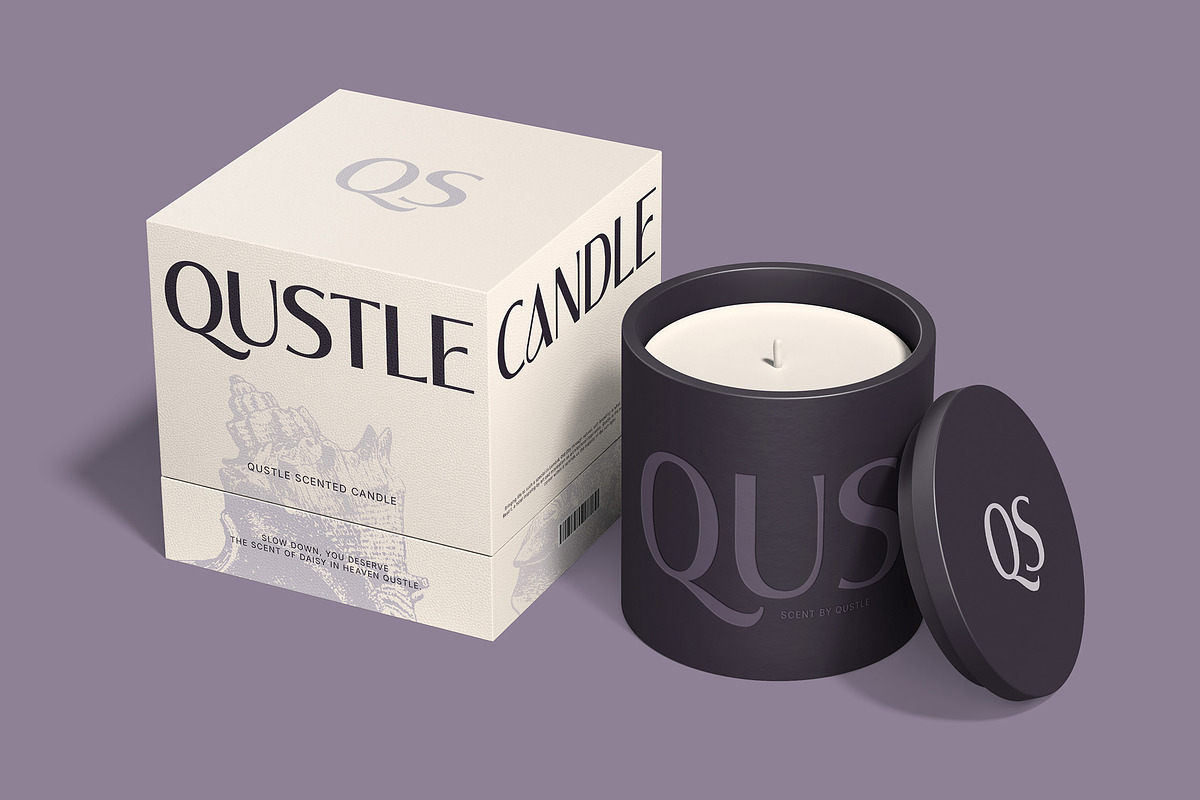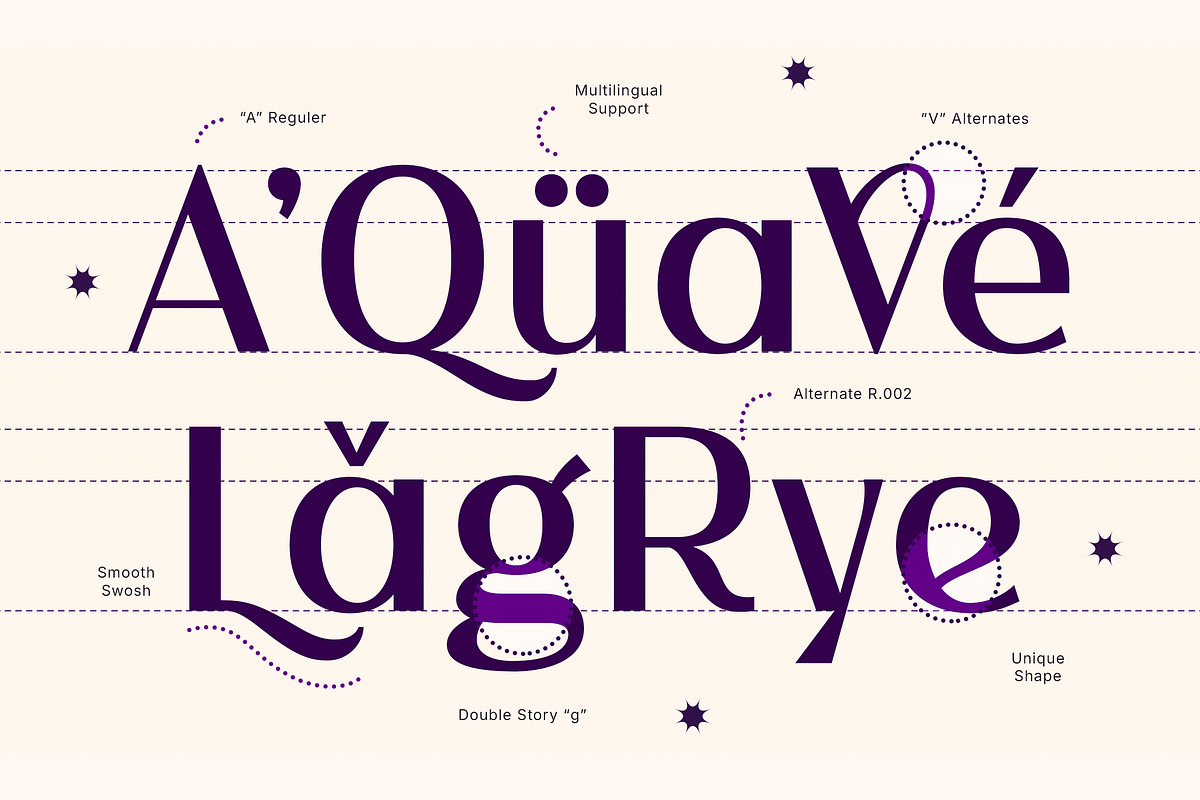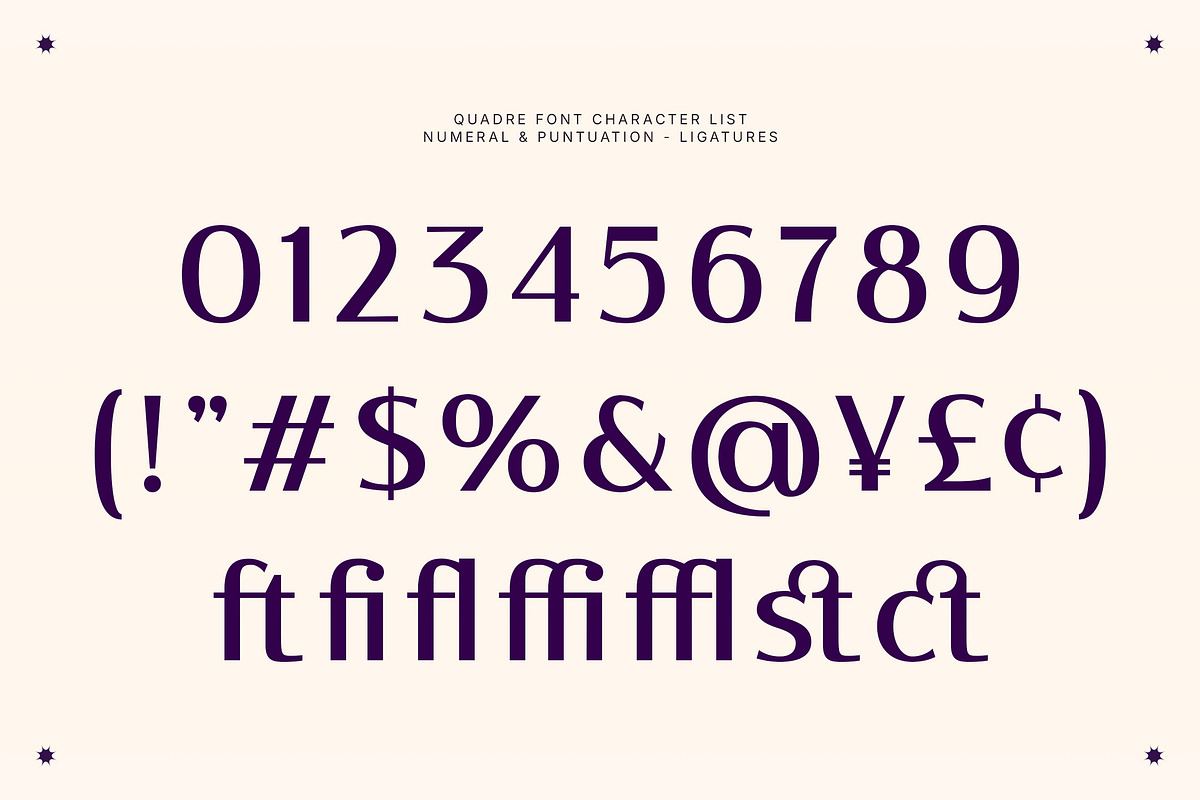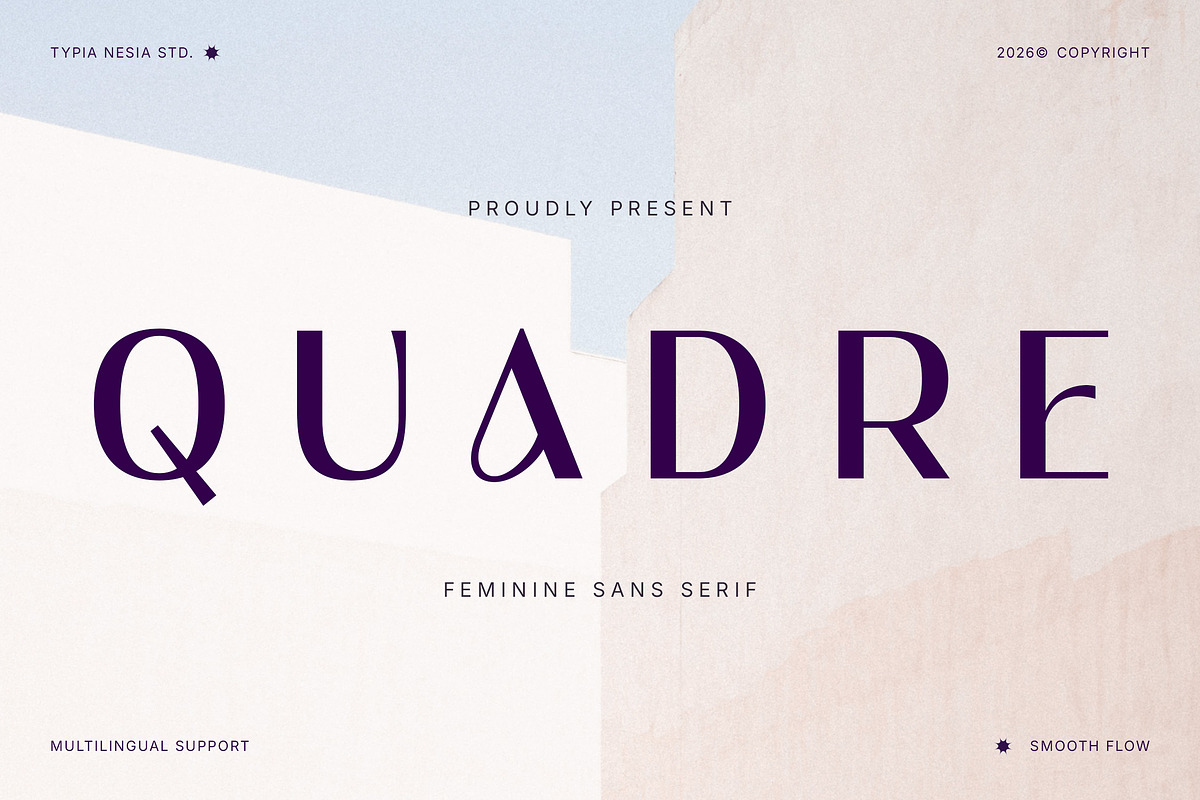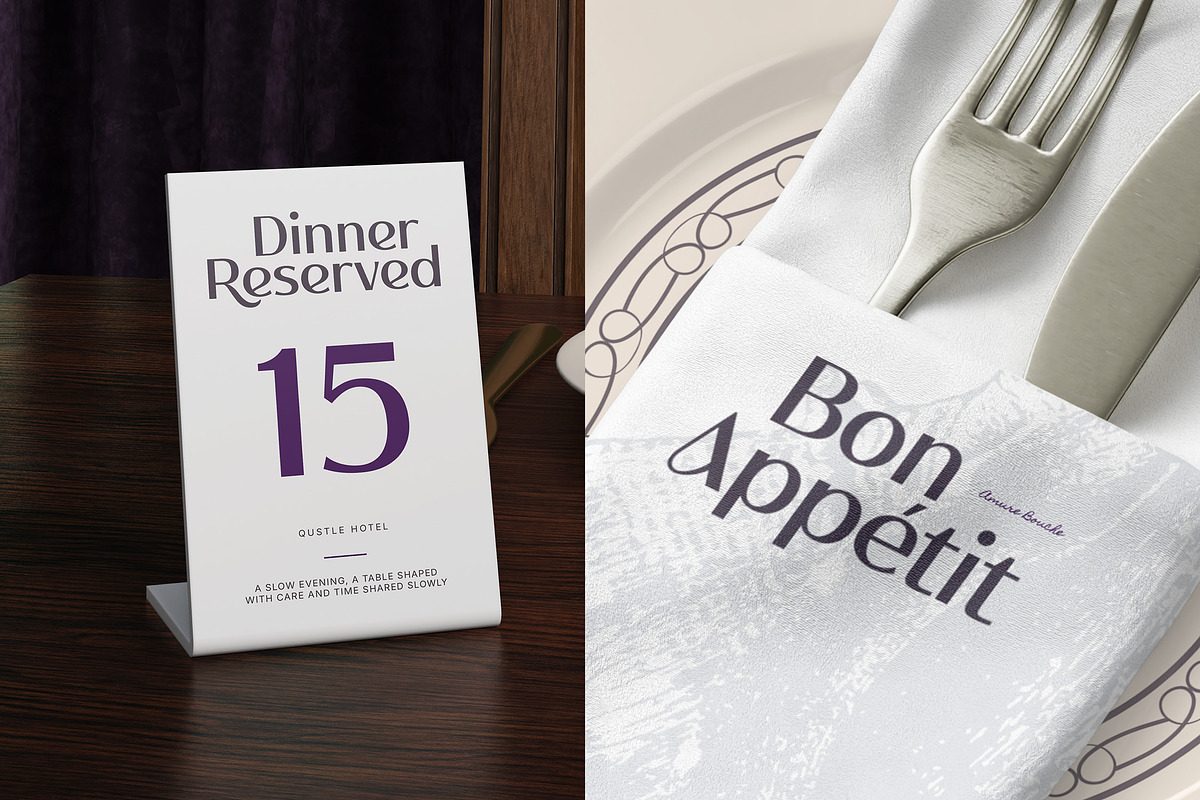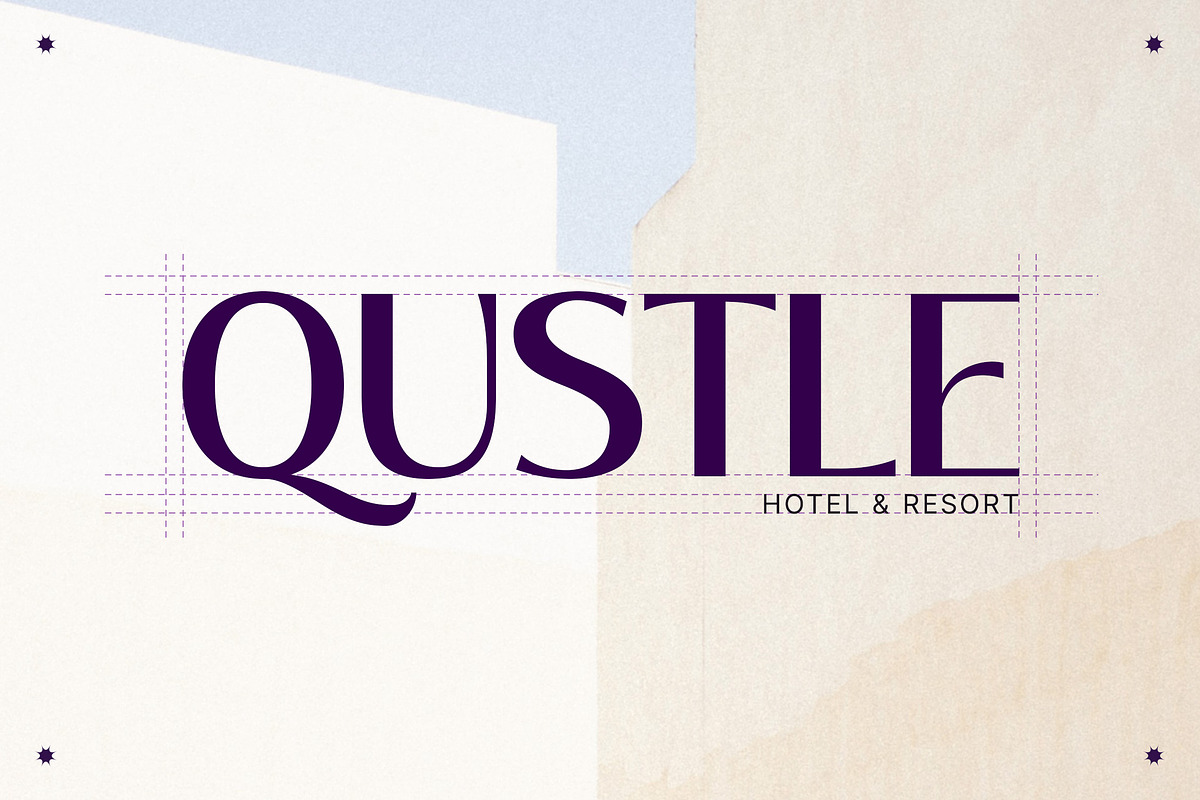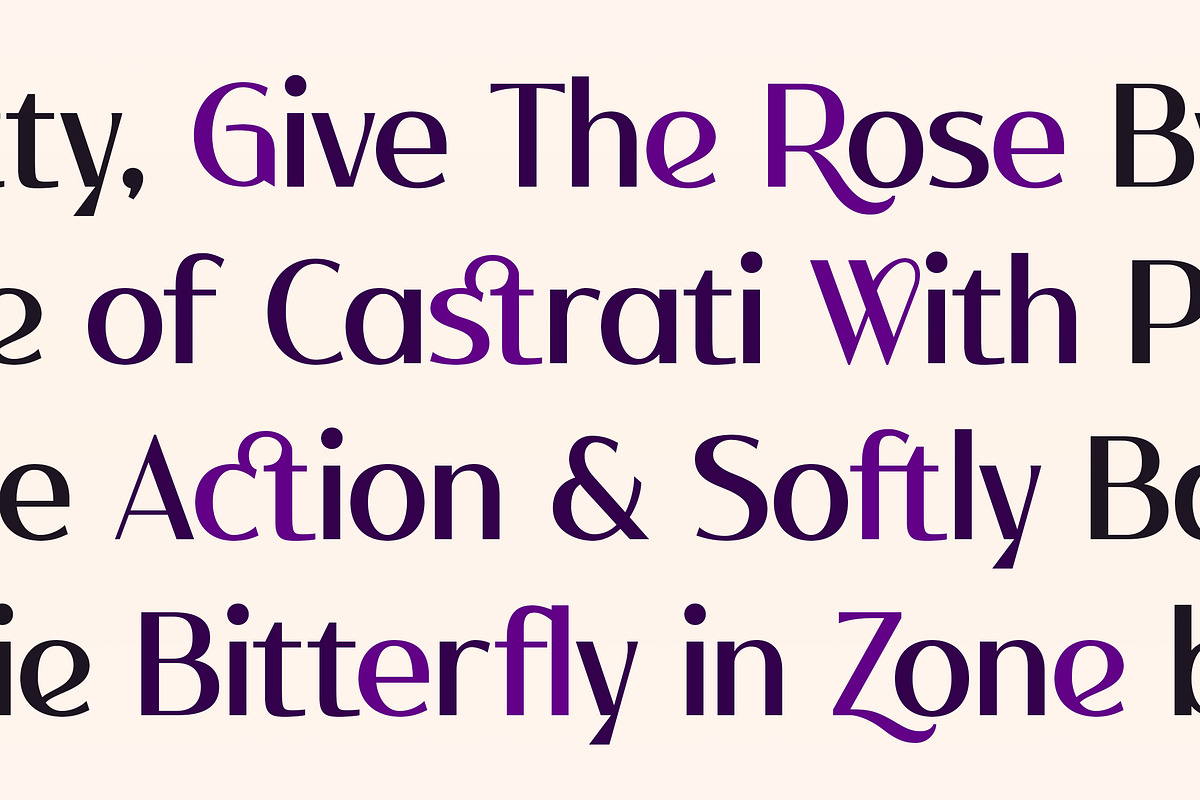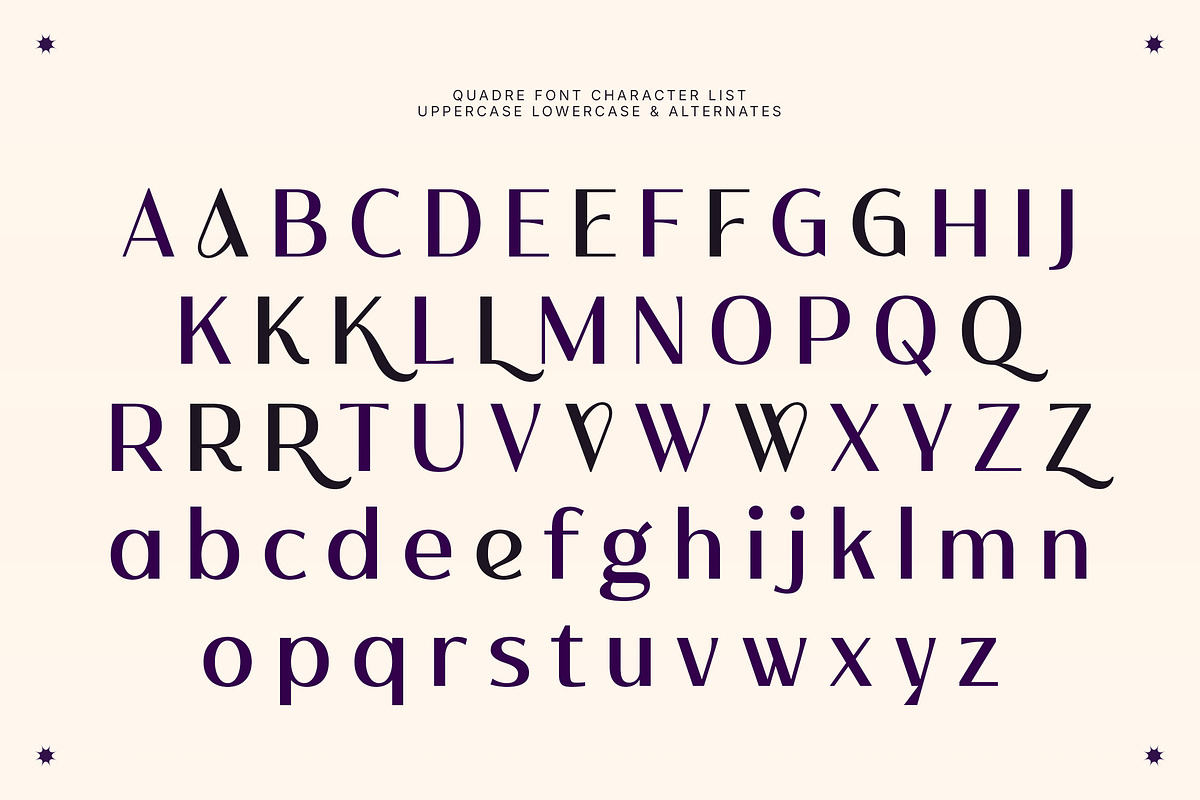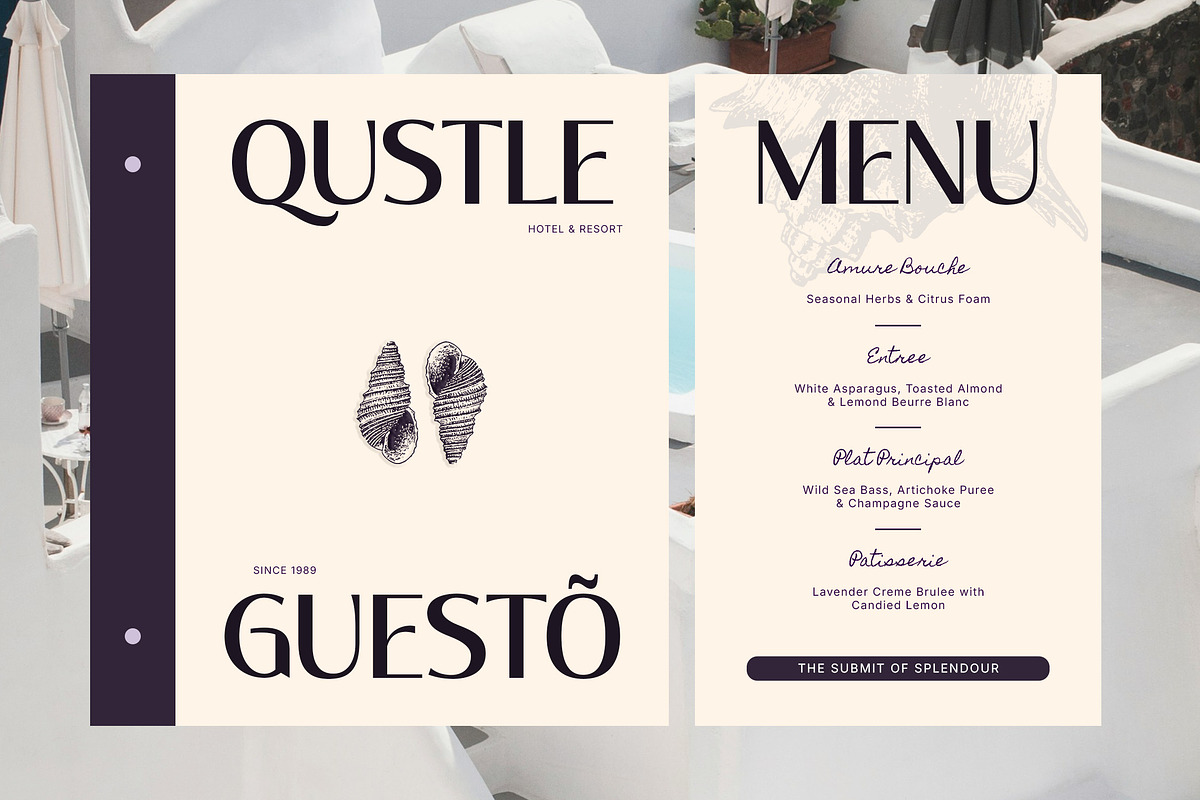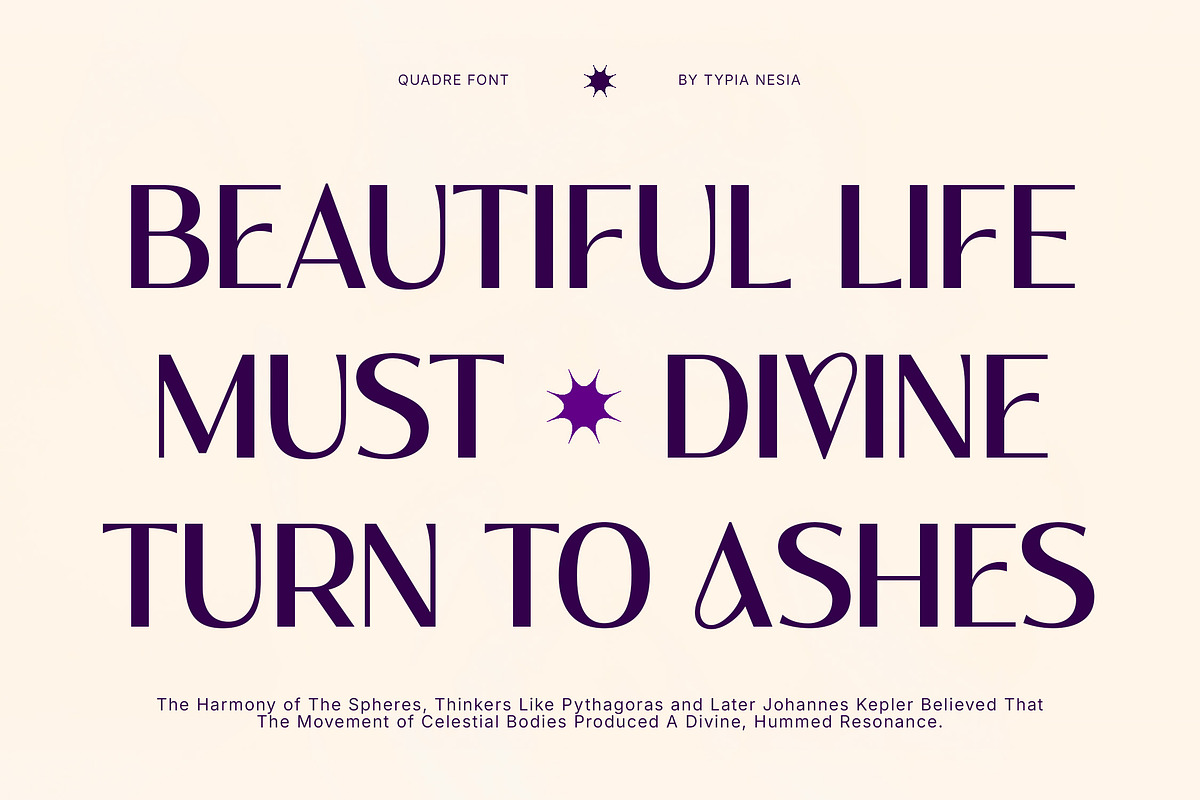
Quadre – Luxury Beauty Elegant Sans
Quadre – Luxury Beauty Elegant Sans Serif - Modern Clean Logo Display Font
Quadre is a modern elegant luxury sans serif font designed to express beauty and premium style. Featuring clean lines, balanced proportions, and graceful curves, this typeface delivers a classy and feminine character with a refined modern touch. It's perfect for logo design, wedding invitations, cosmetic branding, fashion labels, skincare packaging, posters, and premium product packaging. Enhanced with stylish ligature details, the font creates elegant letter combinations that add charm and exclusivity to every layout.
Elevate your brand with timeless elegance using Quadre.